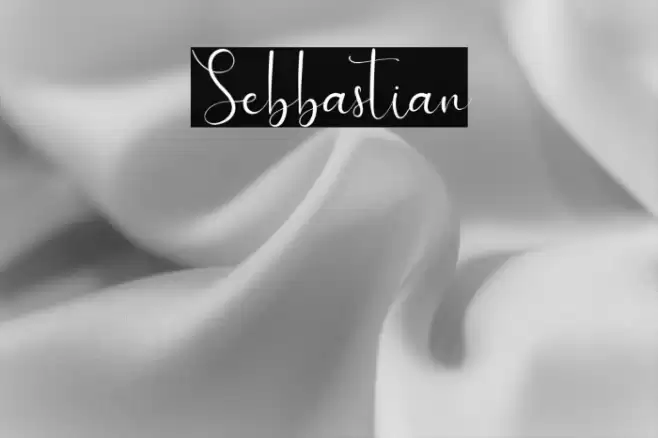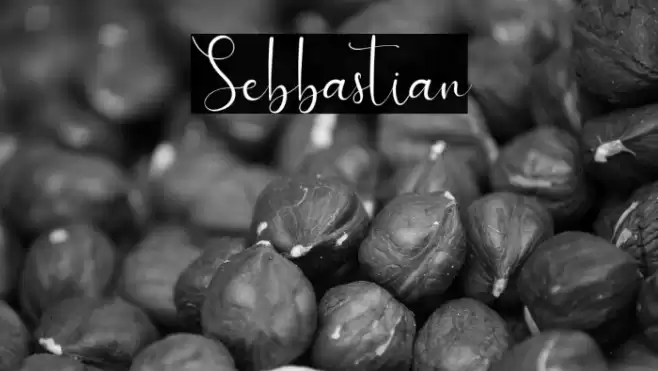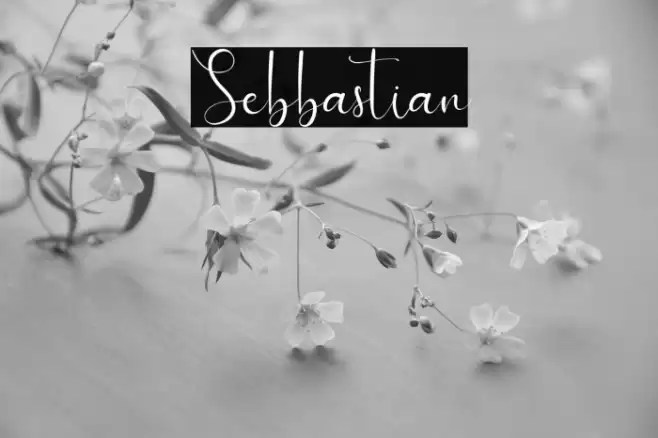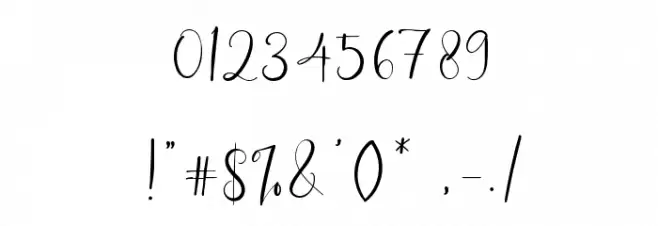
Sebbastian Font
Sebbastian Description
This font features an elegant, flowing script style that exudes sophistication and charm. The characters are delicately crafted with a consistent slant, giving the text a sense of movement and grace. The uppercase letters are ornate and slightly larger, while the lowercase letters maintain a more understated elegance. The numerals and special characters are designed to complement the overall aesthetic, with smooth curves and refined lines. This font is perfect for projects that require a touch of elegance and style, such as wedding invitations, branding, and high-end product packaging.
An elegant, flowing script font with sophisticated charm from Uncategorized fonts.
- Proposed Projects: Wedding invitations, branding, high-end product packaging, greeting cards.
- Overall Style: Elegant, Sophisticated
- Use Case: Headlines, Invitations, Branding